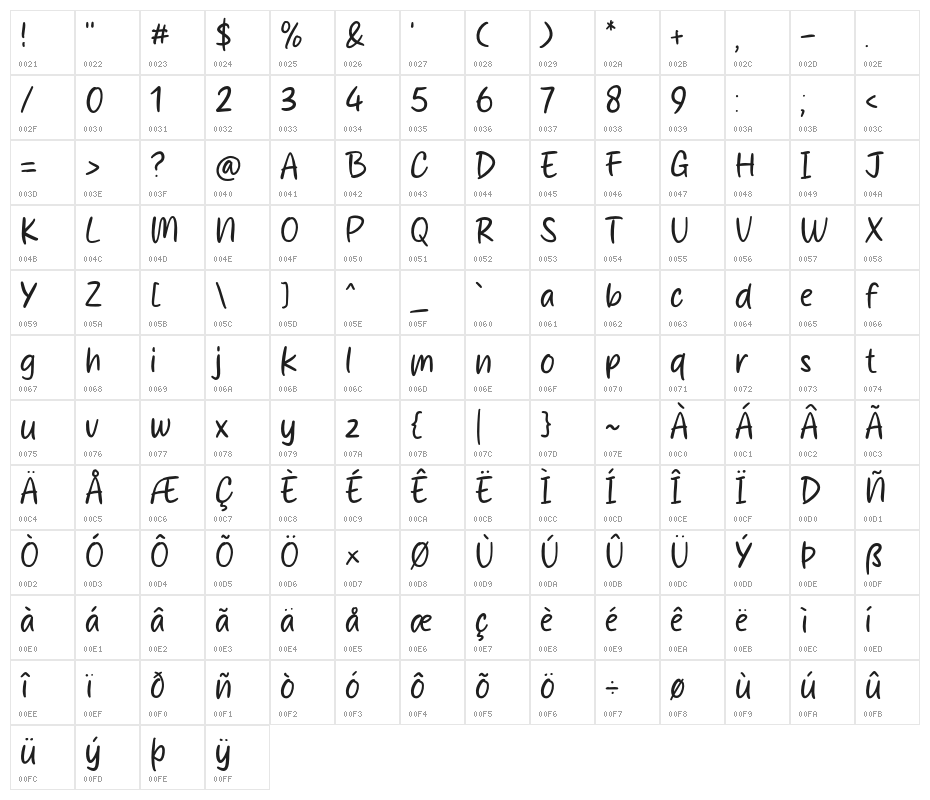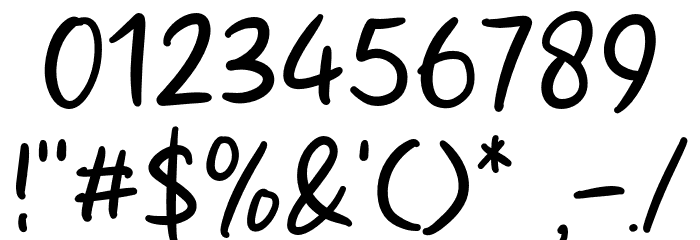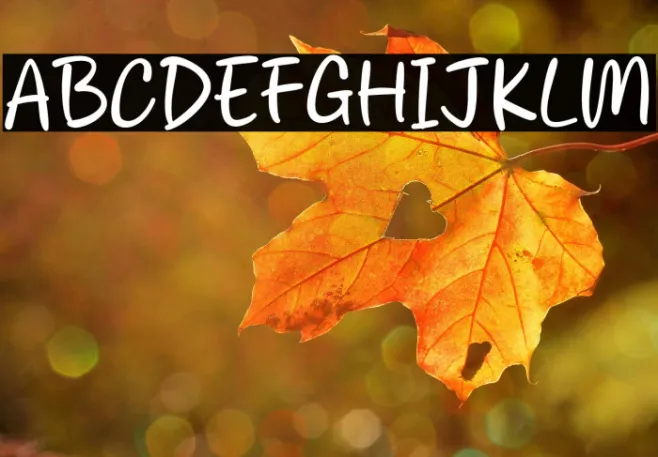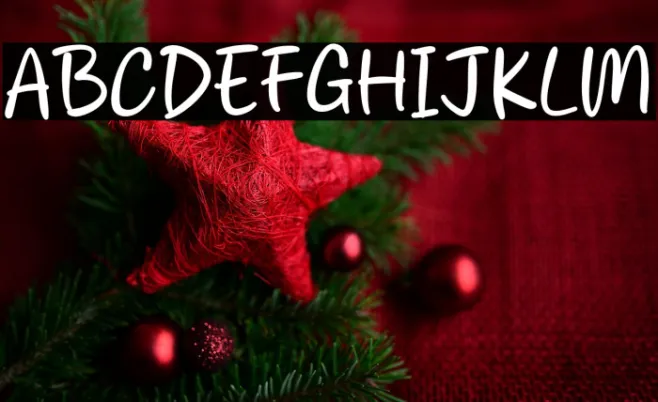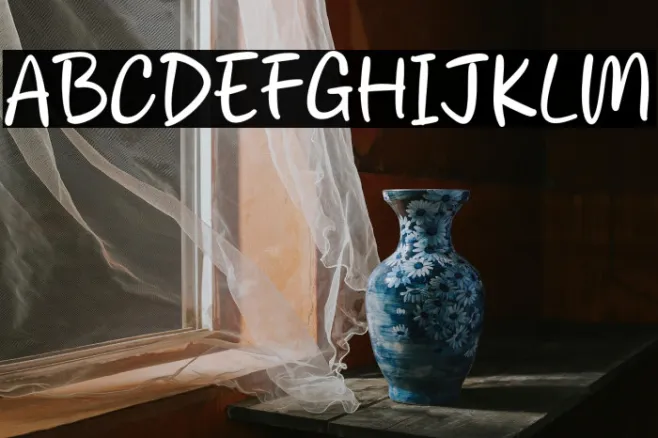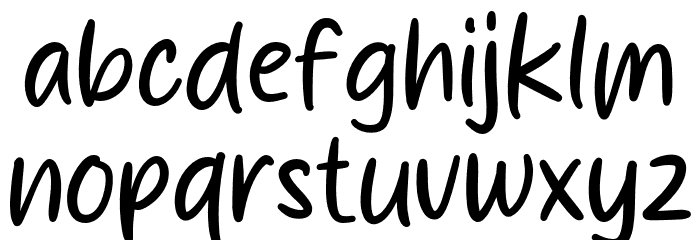
Brooklyn Sky Font
Brooklyn Sky Description
This font exhibits a playful and casual handwritten style, characterized by its smooth, rounded edges and slightly irregular letterforms that convey a sense of warmth and approachability. The uppercase and lowercase letters maintain a consistent flow, with a slight slant that adds a dynamic feel. The numerals and special characters are crafted to match the overall aesthetic, ensuring a cohesive look across all text. This font's informal nature makes it suitable for projects that aim to convey friendliness and creativity.
| Overall Style | Casual, Playful |
| Use Case | Logos, Headlines, Informal Invitations |
| Proposed Projects | Ideal for greeting cards, personal branding, children's books, and creative social media graphics. |